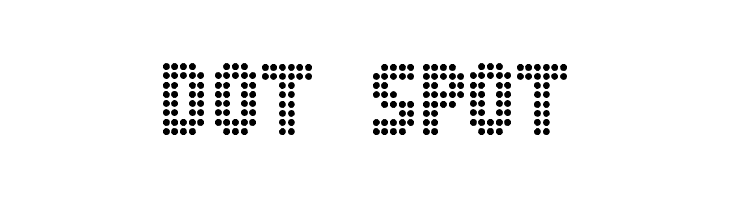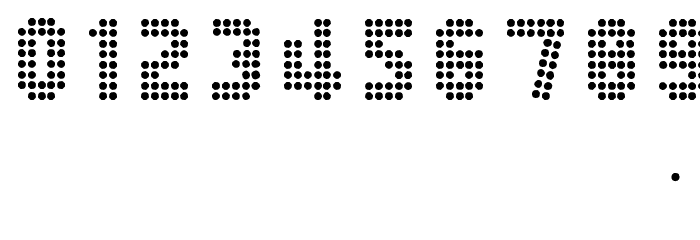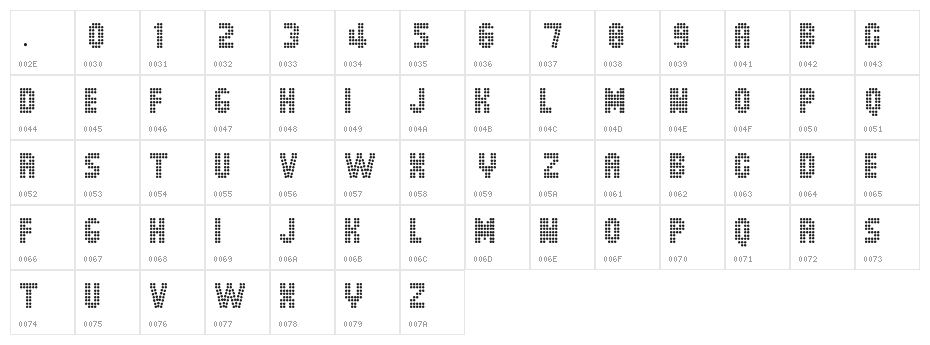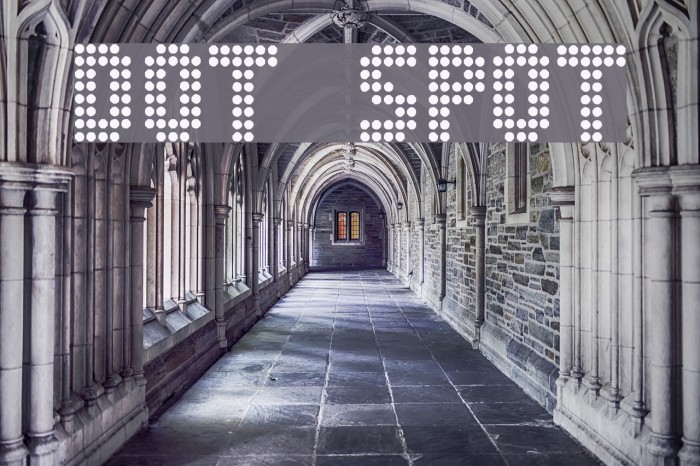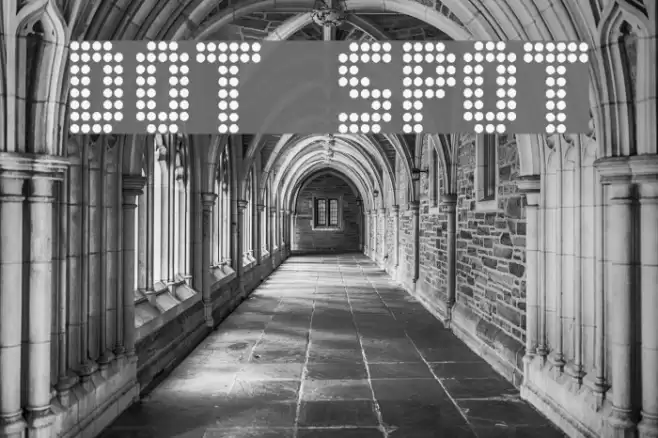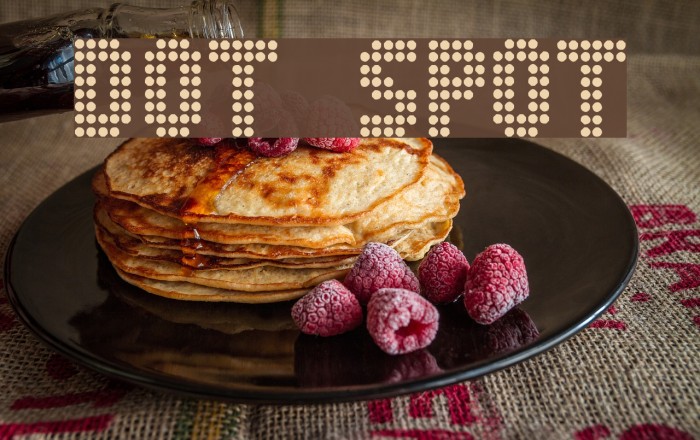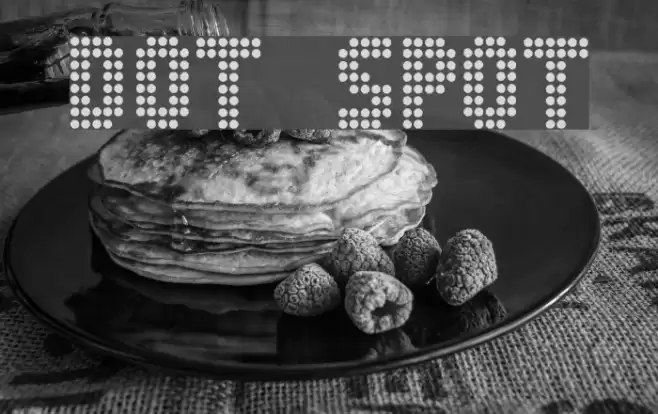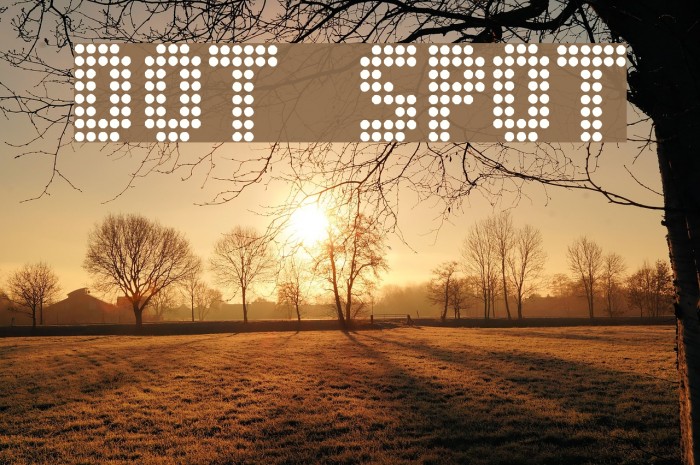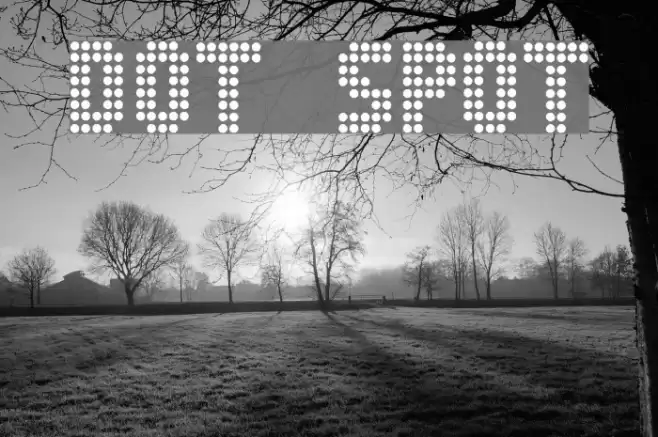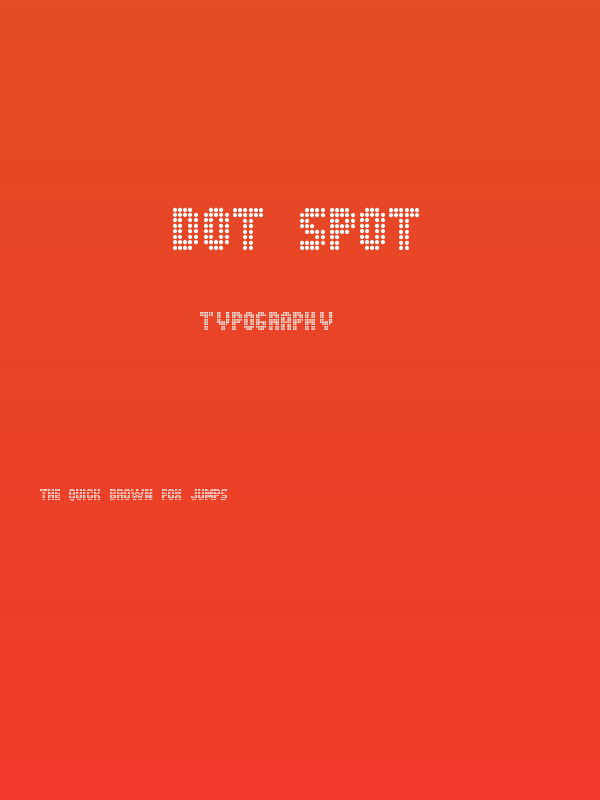
Dot Spot Font
| 全体的なスタイル | Retro, Futuristic |
| おすすめプロジェクト | Ideal for digital-themed designs, retro gaming graphics, tech event posters, or any project needing a futuristic or nostalgic touch. |